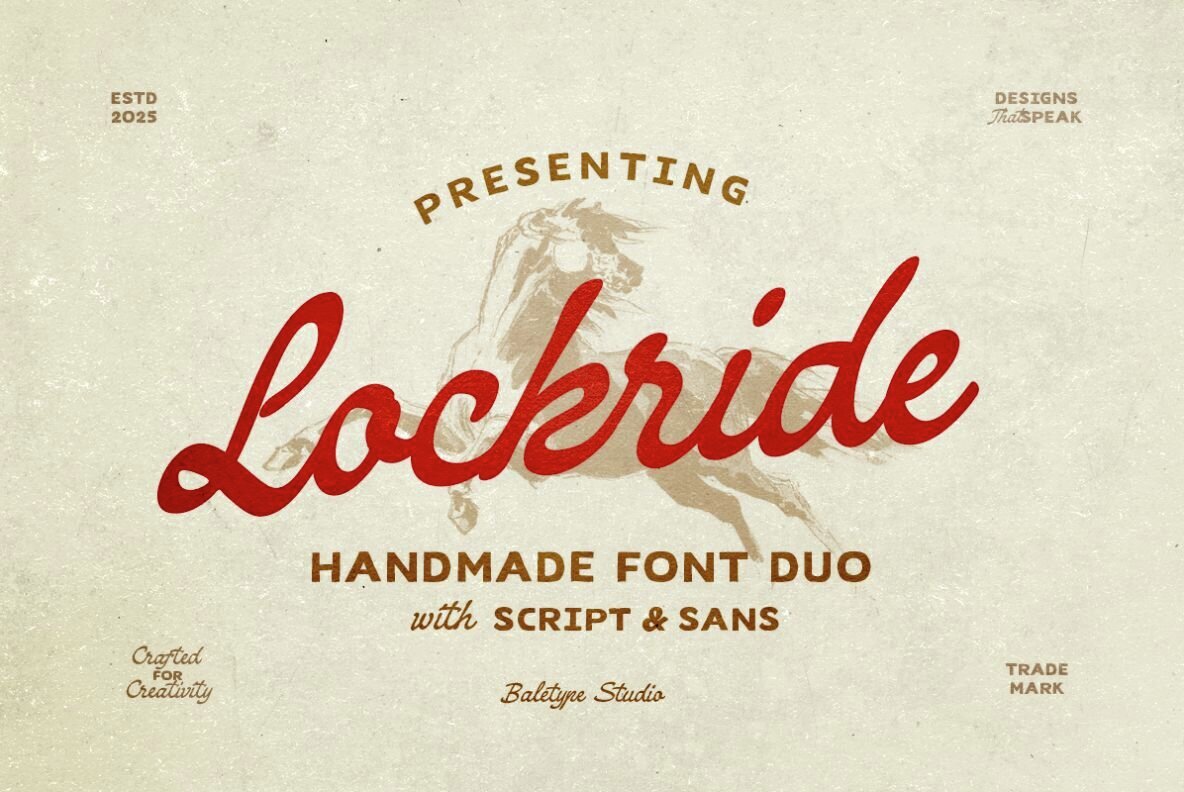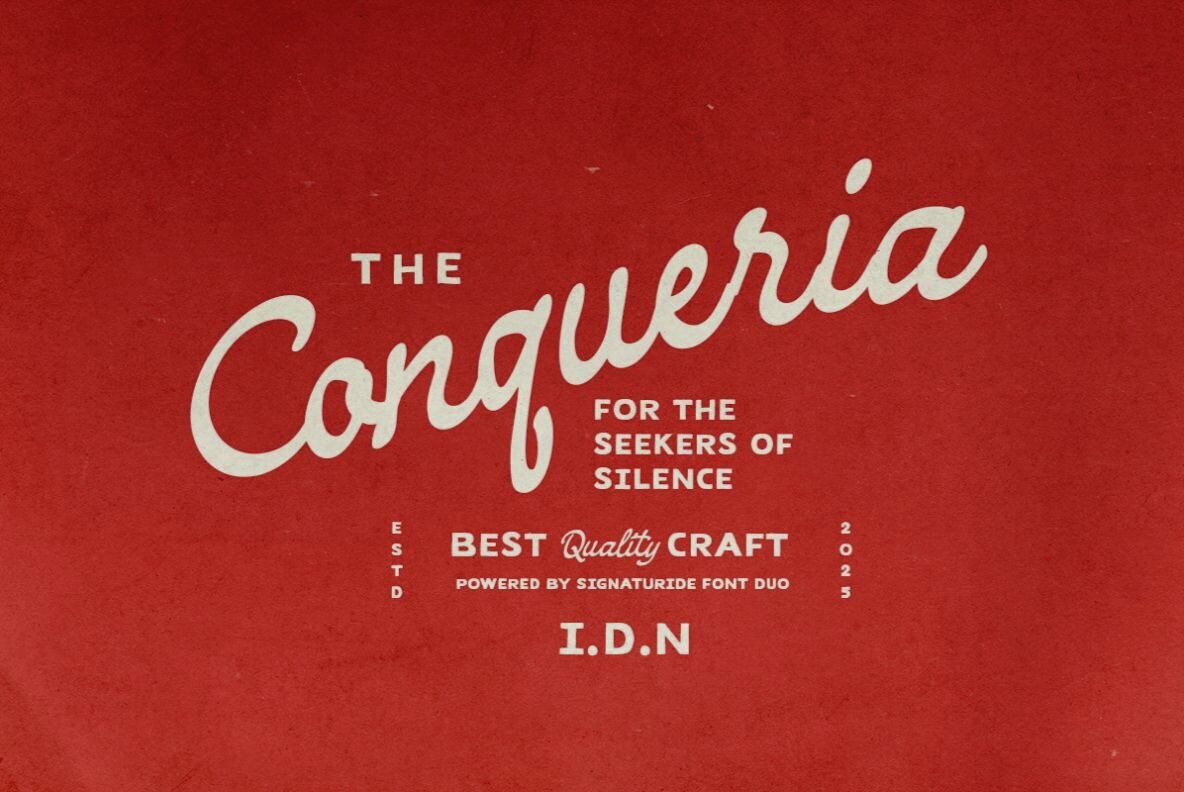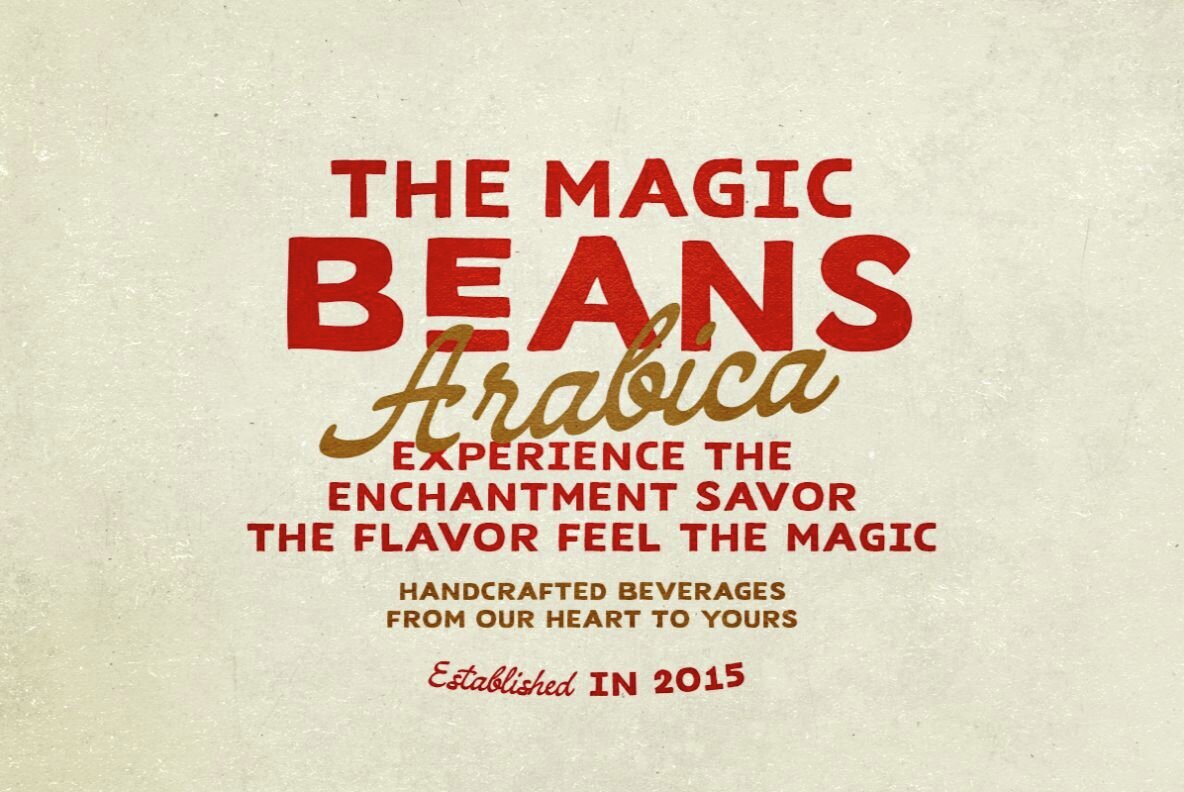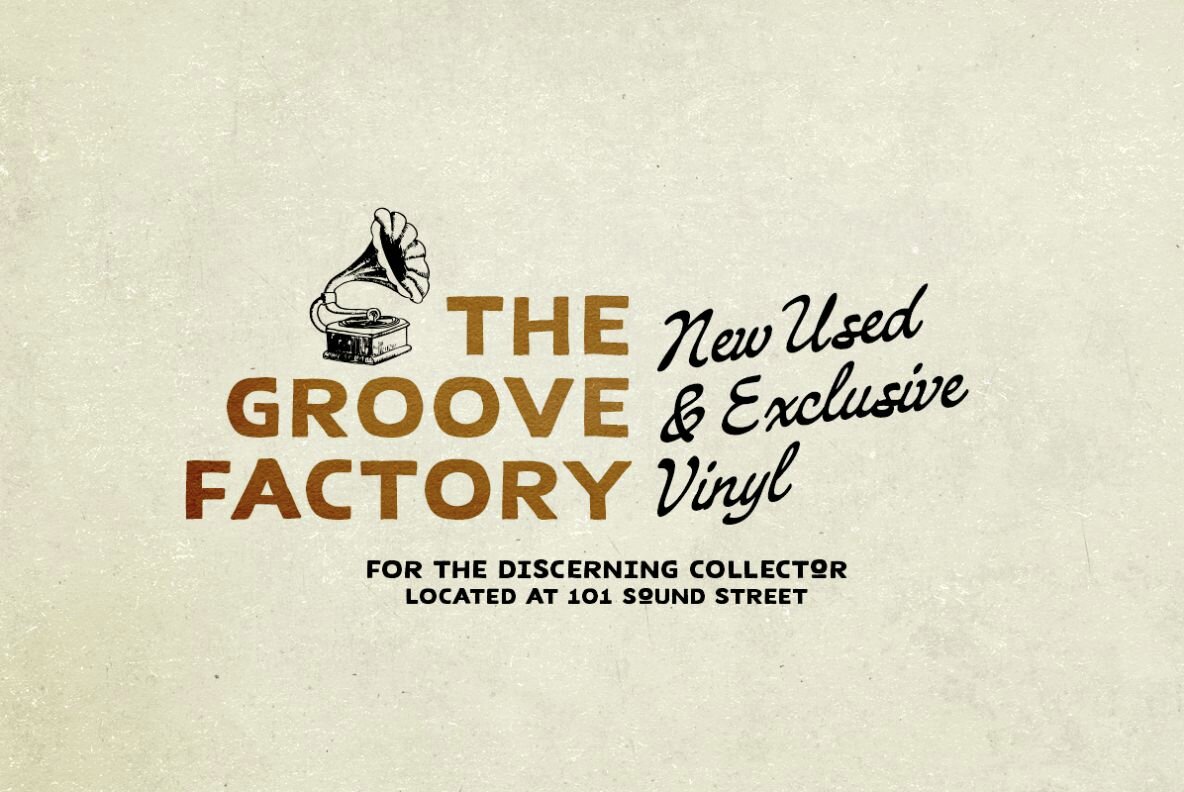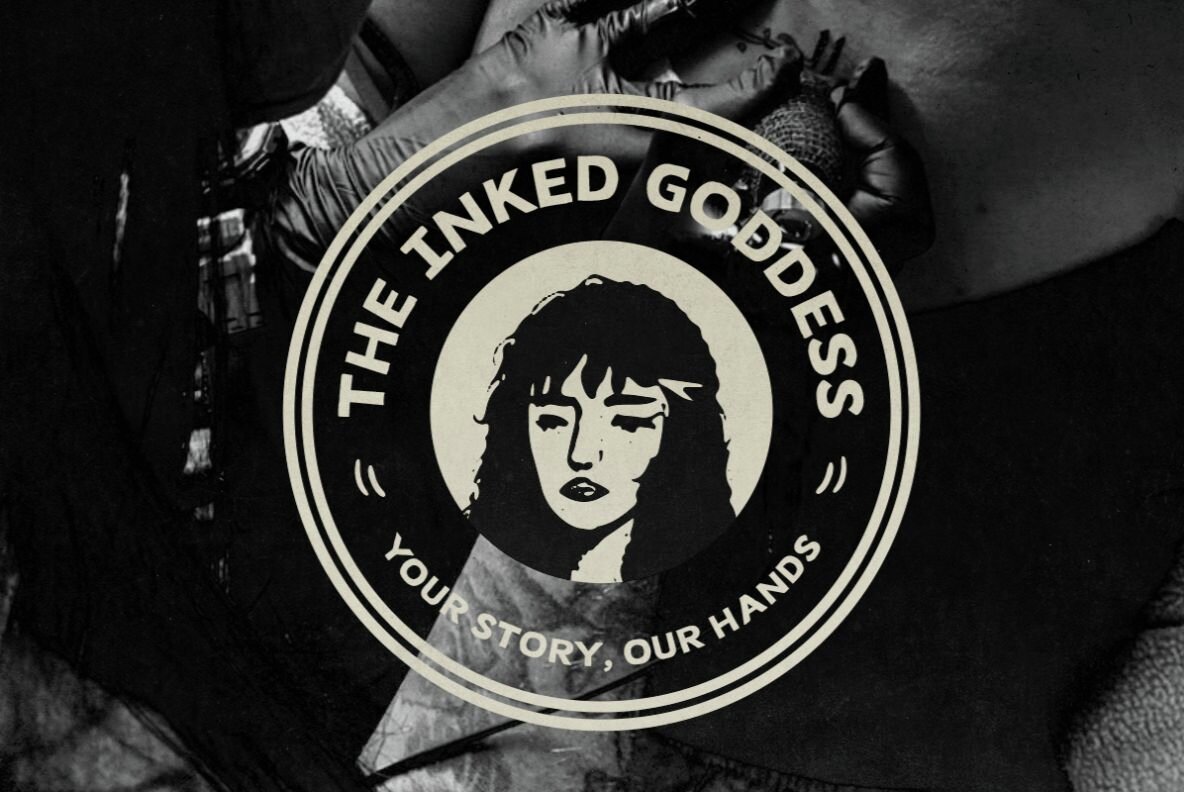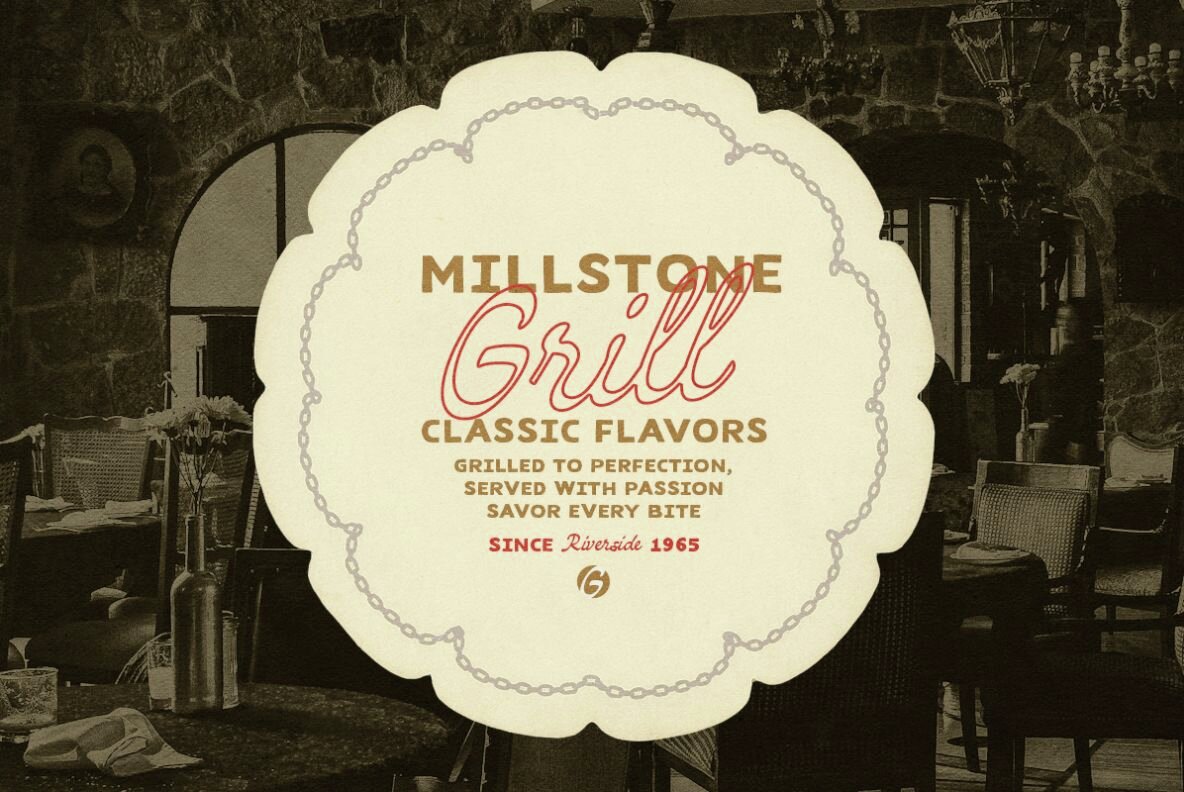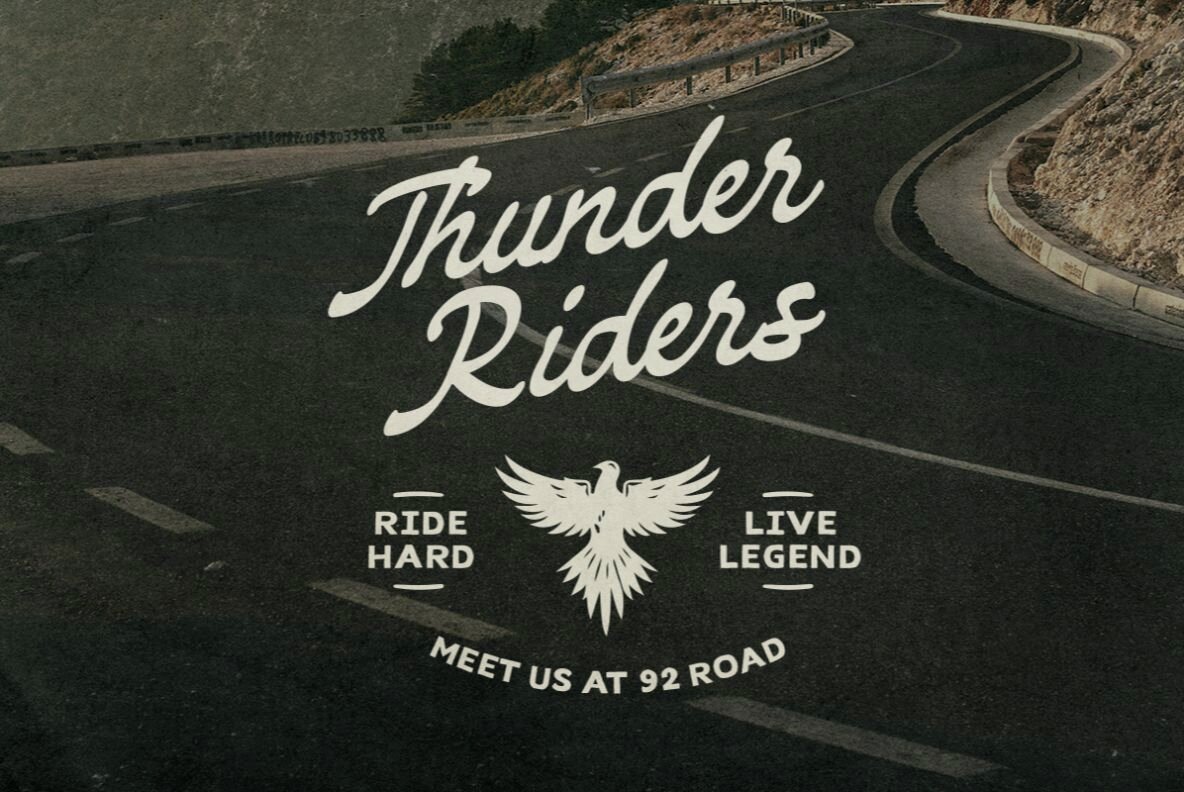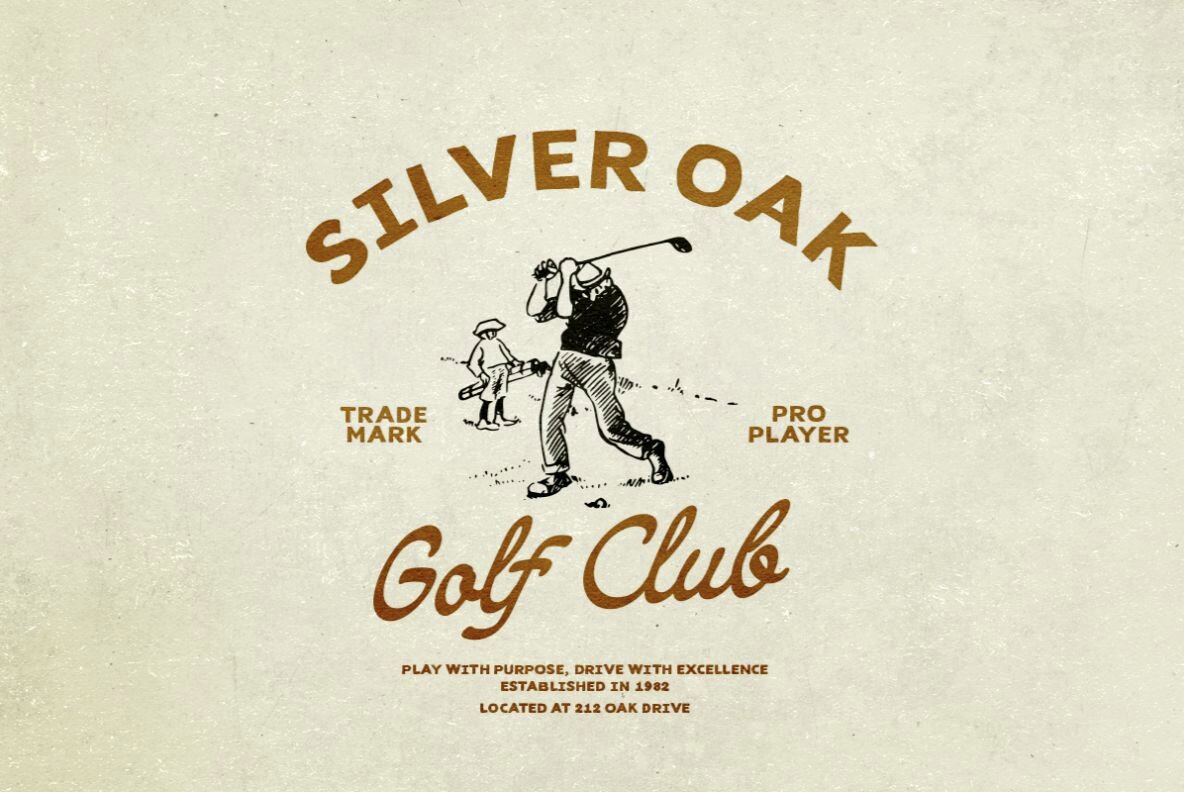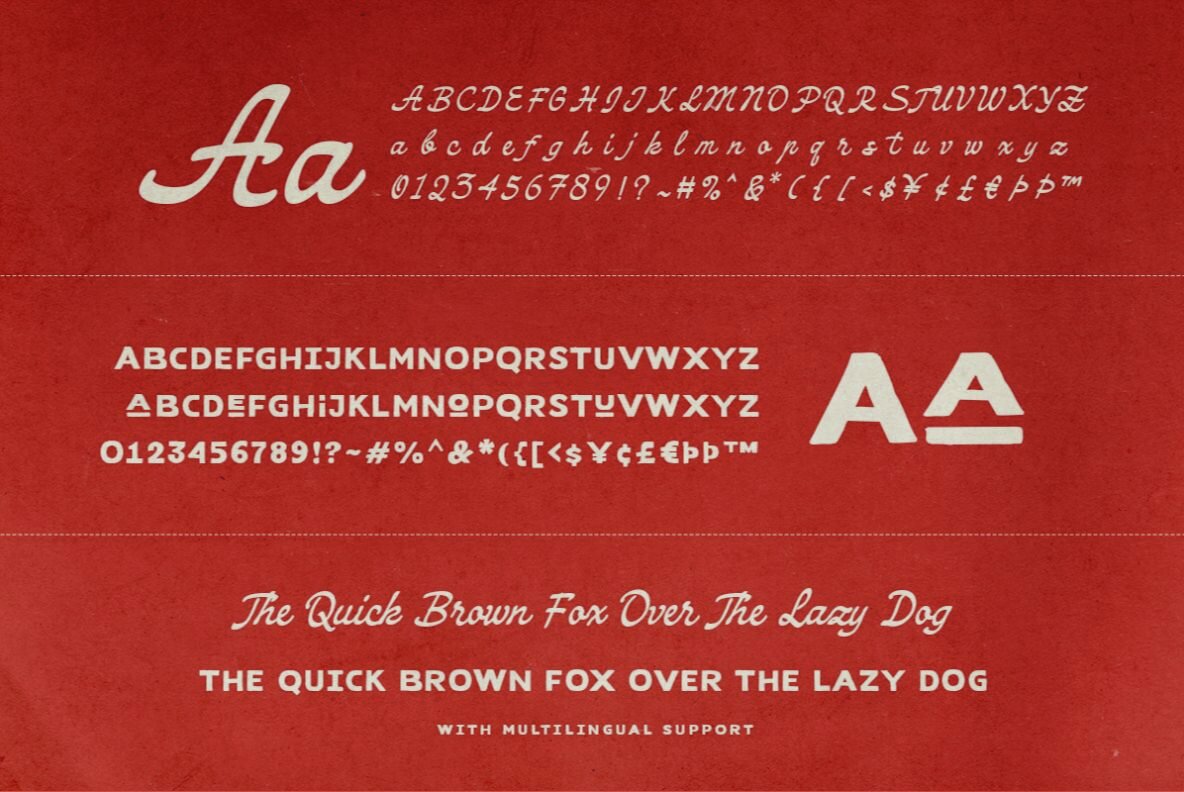
Lockride Font
Lockride Sans
Lockride Script
Lockride brings together a hand-lettered sans and script in a vintage style that evokes a sense of nostalgia and adventure. Ideal for a wide array of applications, this font duo seamlessly fits into projects such as posters, book covers, logos, and branding materials. It's particularly well-suited for themes that evoke the great outdoors.Lockride: A Vintage Font Duo With Classic Appeal